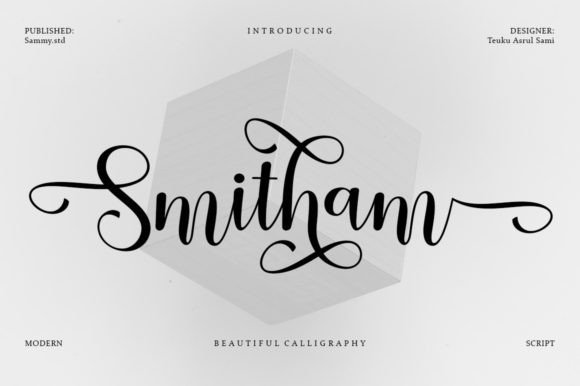
About Smitham Font
**Smitham: A Beautiful Script Typeface for Versatile Design**
Smitham is more than just a script typeface; it’s a versatile design tool with an array of applications. Let’s delve into the features and potential uses of Smitham:
1. **Elegance and Beauty:** The essence of Smitham lies in its beautiful and elegant script. The carefully crafted characters exude a sense of sophistication, making it suitable for a variety of design purposes.
2. **Logos and Branding:** Elevate your brand identity with Smitham. The script’s beauty can bring a touch of class to your logos, creating a lasting impression on your audience.
3. **Wedding Invitations:** Capture the romantic essence of weddings with Smitham. Use it for wedding invitations, RSVP cards, and other stationery to add a touch of elegance to the celebration.
4. **Apparel and T-Shirts:** Make a fashion statement by incorporating Smitham into your apparel designs. Whether it’s for t-shirts, hoodies, or any clothing item, this script typeface adds a stylish flair.
5. **Letterhead and Signage:** Impress with professional documents by using Smitham for letterheads. Additionally, it works wonderfully for signage, providing a classic and eye-catching display.
6. **News and Posters:** Communicate with style in news articles or posters. Smitham’s readability and elegance make it a great choice for conveying information with a touch of sophistication.
7. **Badges and Labels:** Create badges or labels with a distinctive touch using Smitham. Its script style adds a personalized and artistic element to any badge or label design.
9. **Versatility in Design:** Smitham’s versatility shines in its adaptability to diverse design styles. Whether you’re going for a modern, vintage, or classic look, this script typeface seamlessly fits into different aesthetics.
10. **Digital and Print Media:** Whether you’re designing for online platforms or print media, Smitham’s clarity and beauty make it suitable for a wide range of applications.
11. **Poster Design:** Create eye-catching posters with Smitham. Its elegant script adds a touch of drama and sophistication, making your poster designs stand out.
12. **Digital Presentations:** Use Smitham to enhance your digital presentations. Its clean and stylish script can make text elements more engaging and visually appealing.
13. **Book Covers and Editorial Design:** Elevate book covers and editorial layouts with Smitham’s beautiful script. Its readability and aesthetic charm contribute to creating visually pleasing designs.
14. **Invitations and Stationery:** Beyond weddings, Smitham is ideal for various invitations and stationery items. Whether for birthdays, parties, or corporate events, it adds a refined touch to your designs.
15. **Social Media Graphics:** Craft visually appealing social media graphics with Smitham. Its elegant script can make quotes, captions, and promotional content more captivating.
Smitham’s beauty lies not just in its script but in its adaptability to different design scenarios. Whether you’re aiming for sophistication, romance, or a modern vibe, this script typeface adds a touch of elegance to your creative projects.